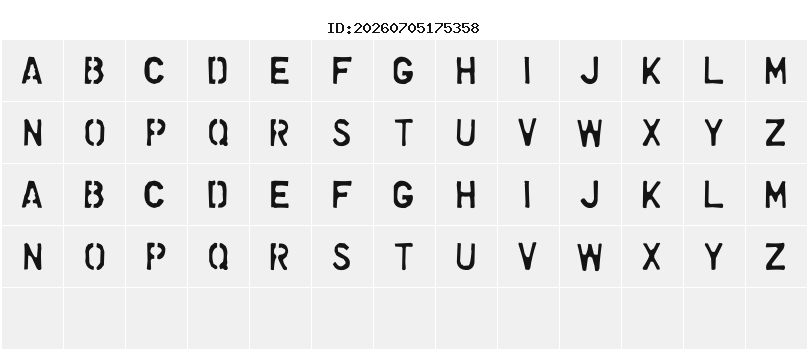
Dollar Store Stencil Preview
• Font Name: Dollar Store Stencil
• Full Font Name: Dollar Store Stencil
About Dollar Store Stencil.ttf
Dollar Store Stencil.ttf is a modern, elegant sans-serif font designed for ultimate readability and visual harmony. Perfect for branding, headlines, web design, and print materials.